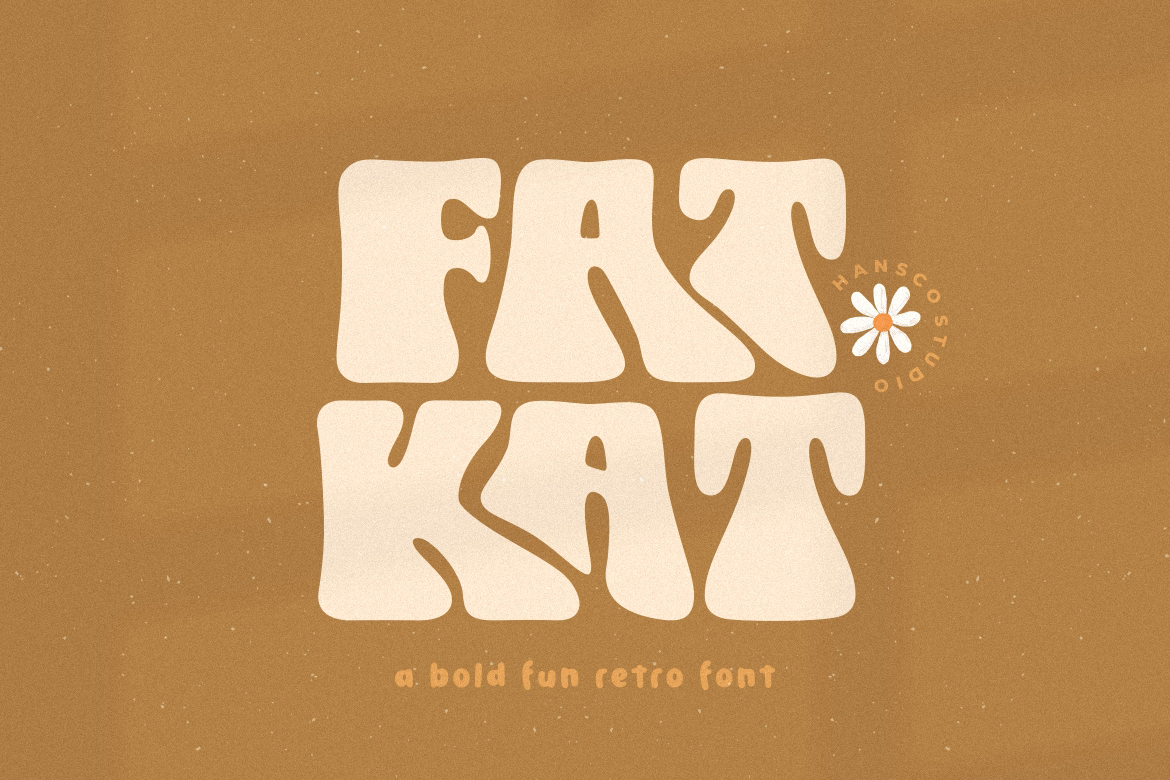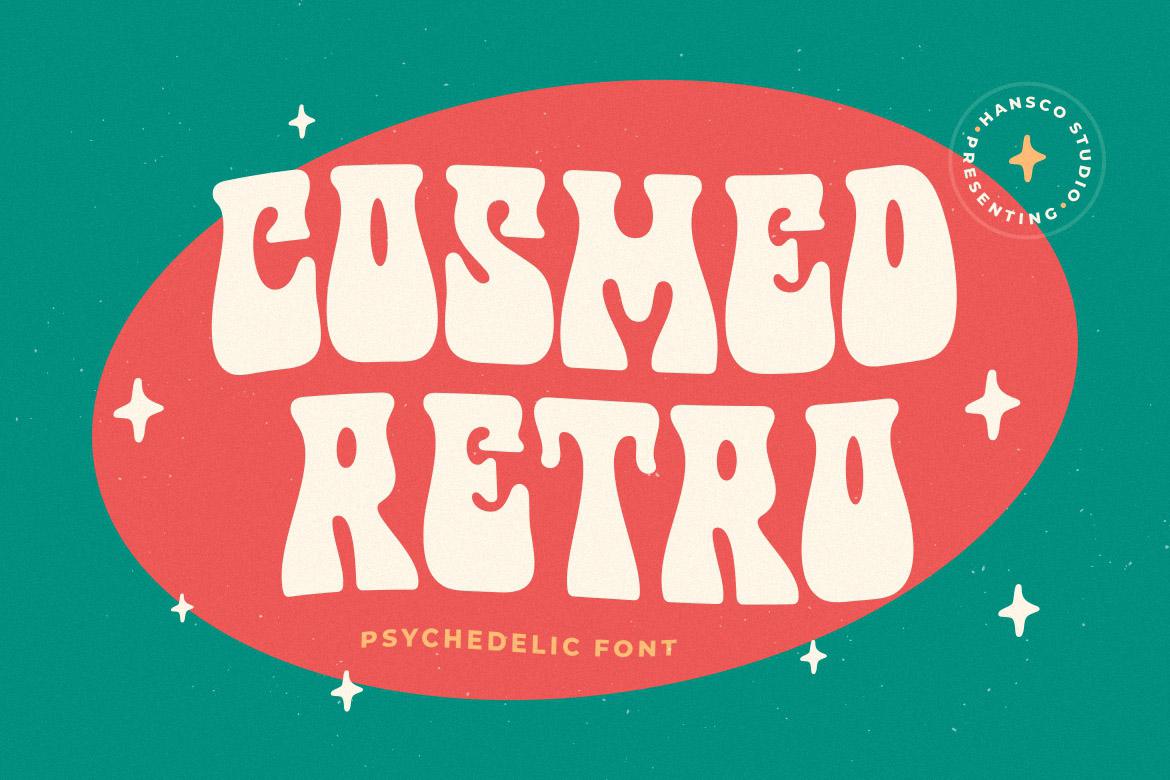
88+ Retro Font and Vintage Font Free and Commercial
Trends in the world of design are very dynamic, sometimes blazing and sometimes fading. Recently, the allure of a retro font has resurfaced and become a typography trend in 2026. This is not just a nostalgic trend; it is a blend of classic charm with contemporary flair, creating a timeless aesthetic.
These fonts are characterized by a distinctive style that reminds you of the 60s to 80s. Their bold strokes and curved edges in retro typography are perfect when combined with modern contexts. Now, if you want to create innovative visuals, you can see the list below.
Best Retro Font Picks for Your Design Inspiration
Many designers love this font for its ability to evoke nostalgia and emotional responses. It brings an element of fun by breaking the monotony of conventional typography. Plus, it stands out in the digital landscape, helping to highlight your brand in a highly competitive marketplace. Here are the most recommended fonts in 2026.
1. Sunday Eighties
Looking for a retro font to promote your product and increase brand awareness? You can consider the Sunday Eighties font. This font can be brought into the professional realm but still maintains its creative side. It is visible from its bold appearance and interwoven letters in a curved shape.
2. Happy Monday
This font features a retro style with bold characters. You can adopt it as an element in clothing design projects, stickers, and similar industries.
3. Letter Magic
Letter Magic is a retro font that evokes the style of the past. Not only that, you can create experiences and spark emotions with it.
4. Magic Funk
This casual retro-style font carries a modern serif concept. It adds a cool style with swirls on some of its characters. Get this complete package to create a template project.
5. Chunky Retro
Chunky Retro exudes a playful vibe to the rounded, bold typography. Your project design process is made easier with the additional shadow/line fonts included in this font pack.
6. Retro Groovy
Want to create a design with a ’60s flair? Retro Groovy could be a font to keep in mind. It is a fun typeface with no straight edges on any of its characters.
7. Magules
Magules is a chunky retro serif typeface with stylistics and ligatures. With the complete font set, you can cover all your design needs, from Cricut projects and the apparel industry to websites and social media posts.
8. Magic Retro
Magic Retro is inspired by the concept of a fun serif with a swash style on some of its characters. It is very mindful to be applied in women-related projects, including skincare, makeup, fashion, and branding.
9. Soul Wave
Soul Wave is a clean and unique wavy retro font. With extra alternatives for some characters, you can create logo designs, quotes, souvenirs, and clothes.
10. Magic Story
Do you need an element with a touch of magic? As you might expect, Magic Story adds a casual retro feel with a modern style. Apply it to all projects dedicated to women.
11. Cosmed Retro
This retro psychedelic style font has a unique shape, which is wavy on all sides. Add the element to your project designs, including logos, stickers, packaging, branding, t-shirts, and posters.
12. Glupy Retro
A retro font that belongs to the display type with a skinny style on top and fat on the bottom. The element will highlight the uniqueness of your project. Therefore, Glupy Retro works well for brand identities and social media designs.
13. Happy Times
As its name, this groovy font brings a happy vibe to your design projects. Its shape is bulging on each side and chubby at the bottom, adding a touch of whimsy to your t-shirt design.
14. City Mango
Every curve of the City Mango font will bring you back to the beautiful memories of the past. Its warmth and cheerfulness fully support your clothing and souvenir designs.
15. Shine Bubble
As you might expect, this is a decorative retro font style that will give an adorable touch. Perfect for making stickers, Cricut projects, and t-shirts.
16. Fat Kat
Fat Kat features unique-looking ligatures with a wavy style. The shape of this thick retro serif font resembles a pile of melted chocolate bars, making it appealing for food business branding.
17. Rushton
A retro font that shows the art of the past. Rushton has a bold and modern look. You can adopt it for logos, merchandise, branding, and product packaging.